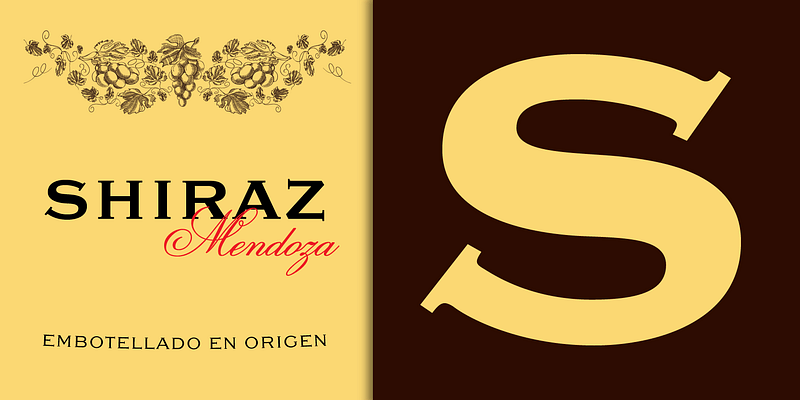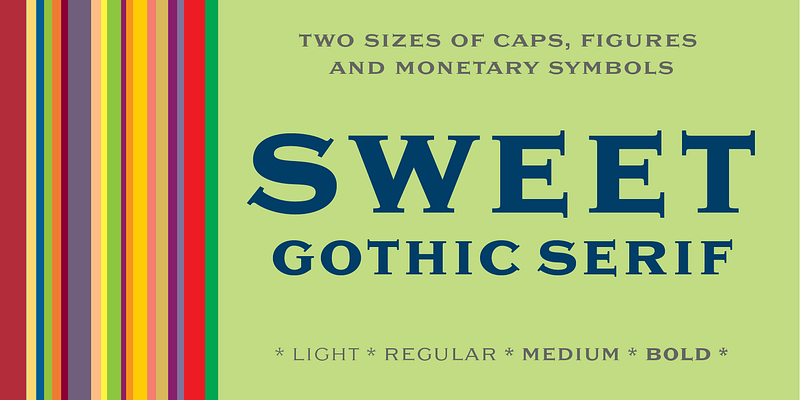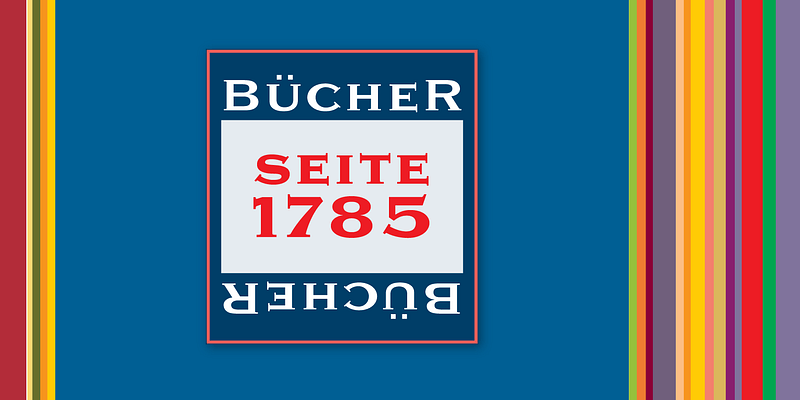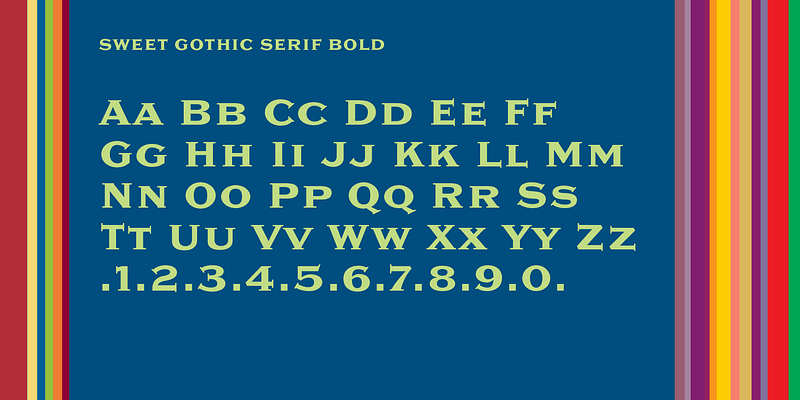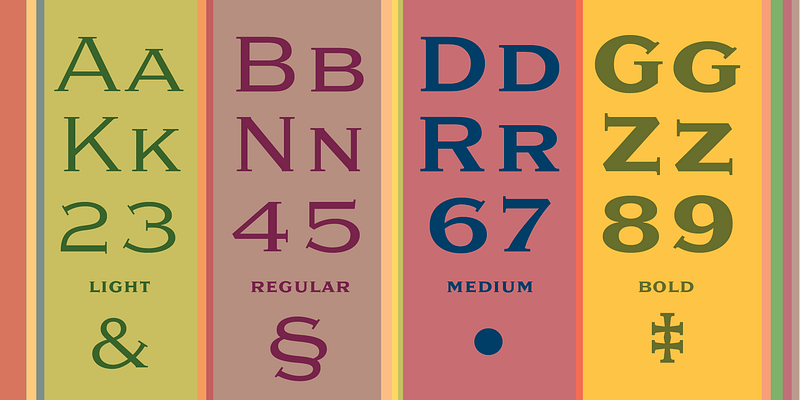
Sweet Gothic is part of MVB’s Sweet Collection of engraved lettering styles from the 20th Century.
Sweet Gothic Light is closely based on lettering from an engravers pattern from the early 1900s. The pattern was used for tracing letterforms with the engraving machine (pantograph) to make steel engraving plates. The design is related to many similar engravers gothics developed in the early 1900s, but as each engraving house created by hand their own patterns for popular styles of the time, there is variation among the models. Sweet Gothic offers contrast in stroke weight and its unique personality.
The bolder weights are new designs, based on the characteristics of the Light. A serif variant, Sweet Gothic Serif, has also been developed to expand the usefulness of the family, offering an alternative to Copperplate Gothic. As such, most of the fonts are new designs, yet may seem familiar and ubiquitous given their model.
The fonts include two sizes of caps, figures and monetary symbols.